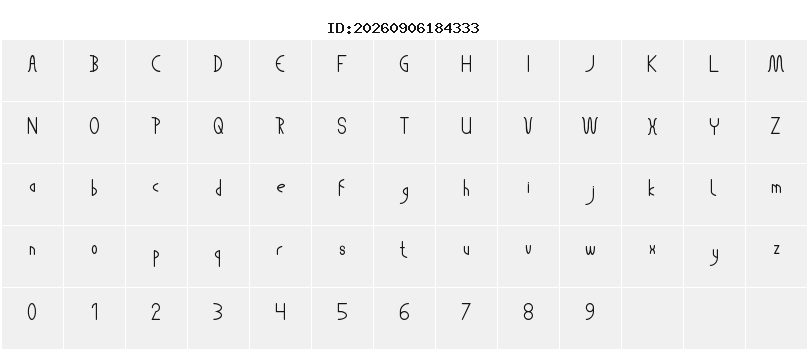
THE LUCKY MAN Preview
• Font Name: THE LUCKY MAN
• Font ID: THE LUCKY MAN:Version 1.00
• Full Font Name: THE LUCKY MAN
• Version: Version 1.00 August 20, 2015, initial release
• PostScript Name: THELUCKYMAN
About THE LUCKY MAN.ttf
THE LUCKY MAN.ttf is a modern, elegant sans-serif font designed for ultimate readability and visual harmony. Perfect for branding, headlines, web design, and print materials.